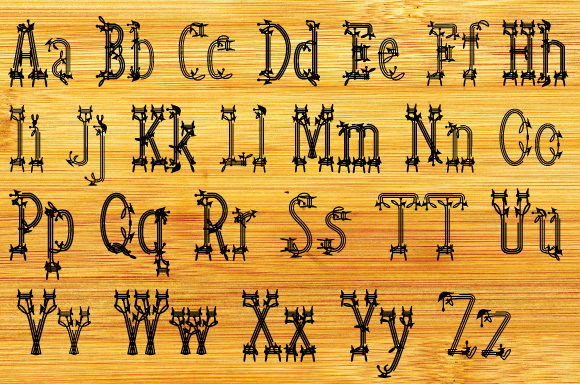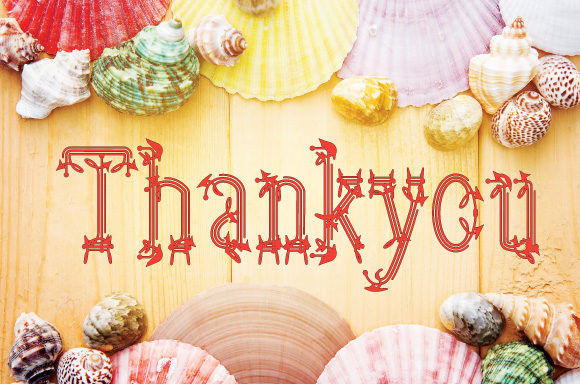
Introducing Beauty Bamboo Font: Elevate Your Designs with Elegance
Are you a designer or crafter looking for a font that can add a touch of elegance and uniqueness to your work? Look no further than the Beauty Bamboo Font. This stunning display font is perfect for creating eye-catching logos, branding, and quotes that will leave a lasting impression.
What Makes Beauty Bamboo Font So Special?
Beauty Bamboo Font is an elegant and unique display font that boasts a neat and beautiful touch in every letter. Its distinctive style is sure to make your design come alive, setting it apart from the ordinary. Whether you’re working on a logo, branding project, or quote, this font is the perfect choice.
Key Features of Beauty Bamboo Font
- Elegant and Unique: Beauty Bamboo Font features a one-of-a-kind design that exudes elegance and sophistication.
- Display Font: This font is specifically designed for display purposes, making it perfect for headlines, titles, and short texts.
- Neat and Beautiful Touch: Every letter has a neat and beautiful touch, ensuring that your design looks polished and refined.
- Ease of Use: Beauty Bamboo Font is easy to use and can be applied to various design projects, from logos and branding to quotes and more.
Beauty Bamboo Font is a versatile font that can be used by designers and crafters for a wide range of projects. Whether you’re creating:
- Logos: Use Beauty Bamboo Font to create a memorable and impactful logo that represents your brand.
- Branding: Apply this font to your branding materials, such as business cards, brochures, and letterheads, to create a cohesive and professional look.
- Quotes: Add a touch of elegance to your quotes and sayings with Beauty Bamboo Font, making them perfect for social media, posters, or gifts.
Why Choose Beauty Bamboo Font?
With so many fonts available, why choose Beauty Bamboo Font? Here are just a few reasons:
- Unique Style: Beauty Bamboo Font offers a distinctive style that will set your design apart from others.
- High-Quality: Beauty Bamboo Font is a high-quality font that is designed to produce crisp and clear text, even at large sizes.
Tips for Using Beauty Bamboo Font
To get the most out of Beauty Bamboo Font, here are some tips:
- Use it Sparingly: Beauty Bamboo Font is a display font, so use it sparingly to make a bigger impact.
- Pair it with Other Fonts: Experiment with pairing Beauty Bamboo Font with other fonts to create a unique and visually appealing design.
- Adjust the Size: Play with different font sizes to create visual hierarchy and add emphasis to your design.
Beauty Bamboo Font is an elegant and unique display font that is perfect for designers and crafters looking to add a touch of sophistication to their work. With its neat and beautiful touch, this font is sure to make your design come alive. Whether you’re creating logos, branding, or quotes, Beauty Bamboo Font is the perfect choice. So why wait? Download Beauty Bamboo Font today and elevate your designs with elegance!